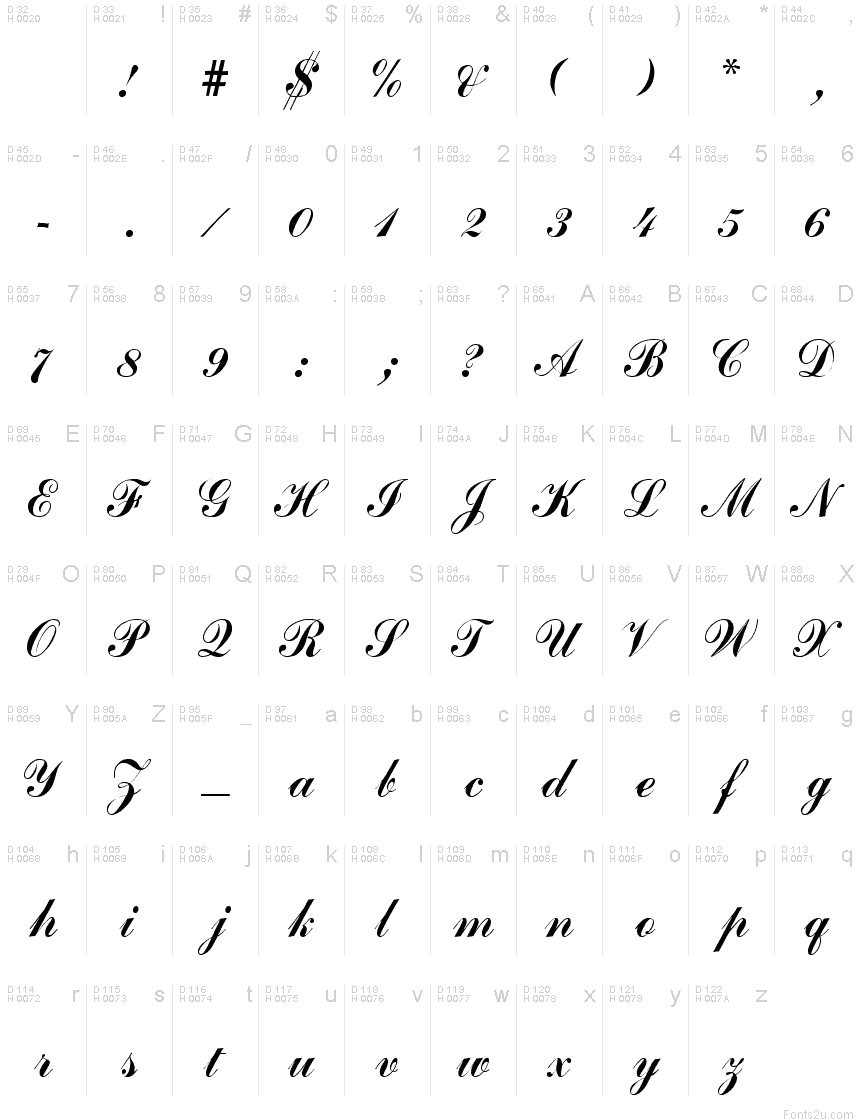
Grimpar, created by A. Mendoza of Altsys Metamorphosis, is a free formal calligraphic script with dramatic thick-thin strokes. Its steep slant, sweeping connections, and long tapered flourishes recall elegant pen lettering, with every curve sharply controlled.
Fashion photography and botanical illustration echo the script's flowing lines, making it useful for magazine covers and fragrance packaging. Formal invitations are another natural fit. Its ornate penwork and fine hairlines speak directly to fashion, beauty, and luxury event audiences.